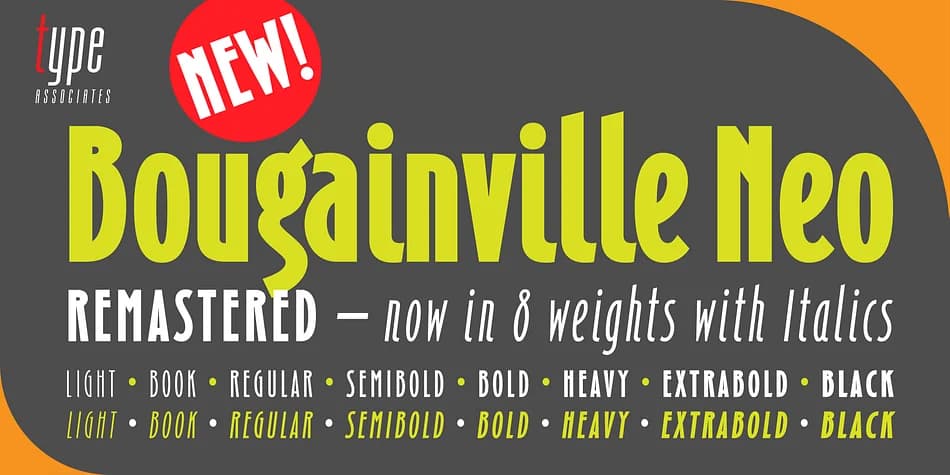
Bougainville Neo is Type Associates' complete remake of their 2010 classic Bougainville typeface, significantly expanded with four additional weights and full italic versions. The name honors 18th-century explorer Louis-Antoine de Bougainville, whose voyages across the South Pacific gave names to the vibrant tropical islands and distinctive flora he discovered on his journey. As a decorative typeface, it balances ornamental character with genuine versatility, performing beautifully as a bold headline or semi-display text while maintaining strong readability across sizes.
The weight expansion makes it genuinely useful across projects that need both visual personality and flexible design control. Wedding invitation suites benefit from its decorative warmth and sophistication, Etsy product labels gain credibility through the varied weight options, artisanal spa and skincare packaging commands real presence with intention, and handcrafted signage projects achieve the character they deserve. Being able to shift between weights gives you true control over visual hierarchy and emphasis without needing to add multiple decorative typefaces to your design toolkit.
Bougainville Neo Font is a decorative font that shines as a display or heading face. Pair it with a clean sans-serif or serif font for body text β the contrast creates a clear hierarchy while the two styles stay balanced and easy to read.